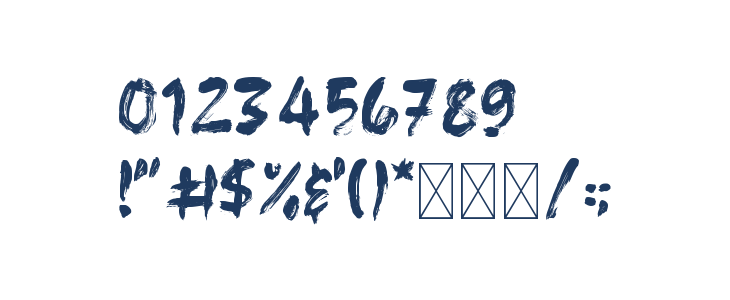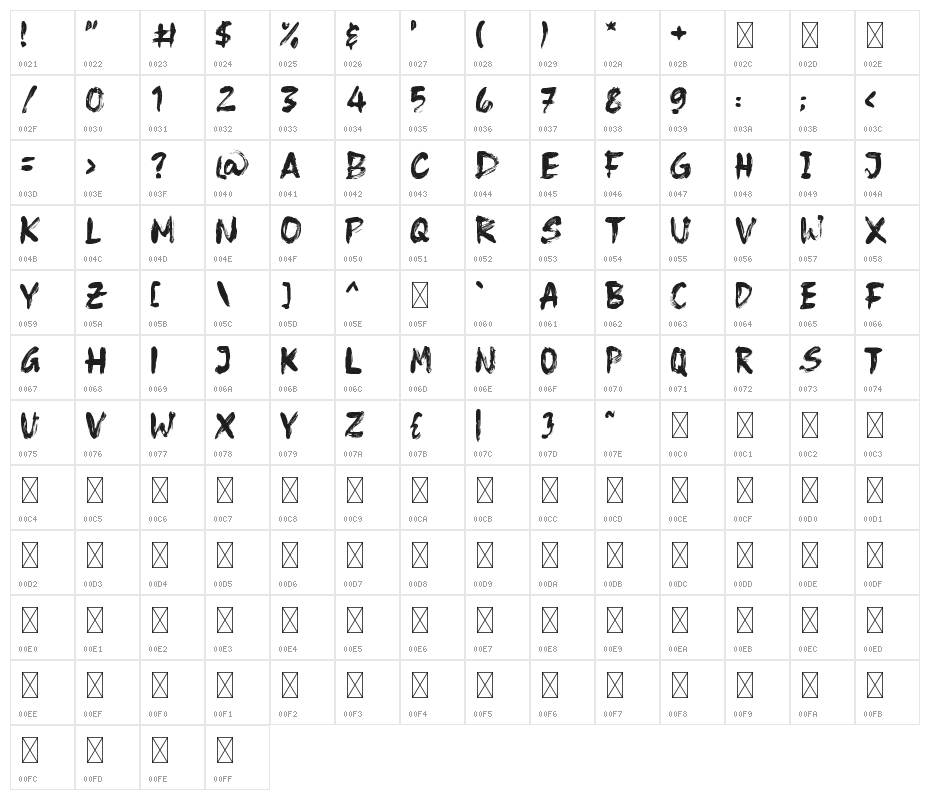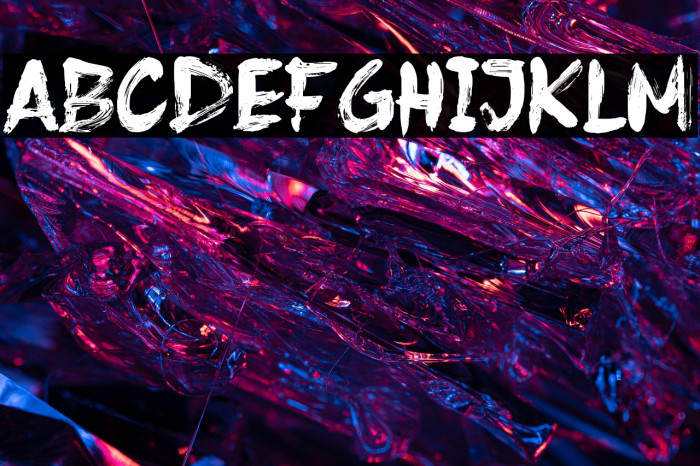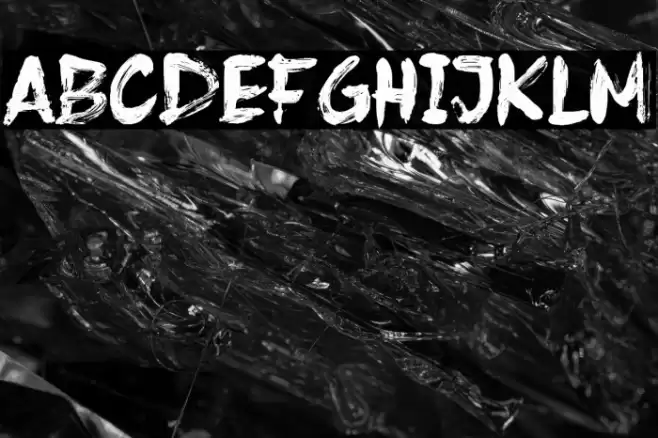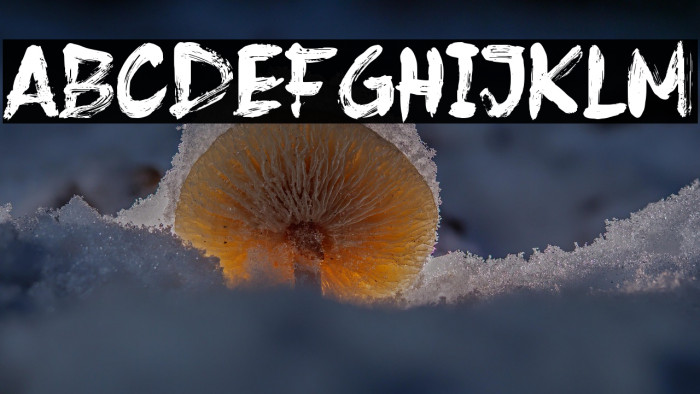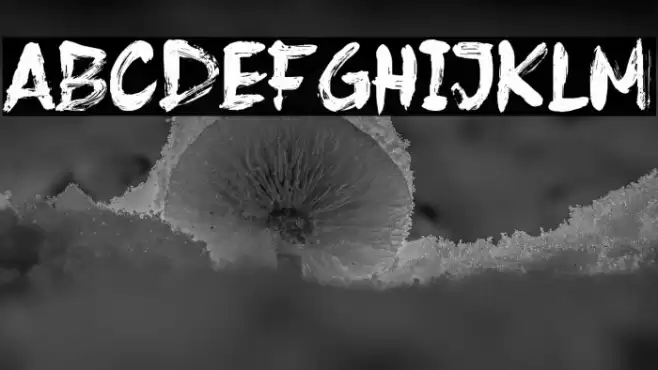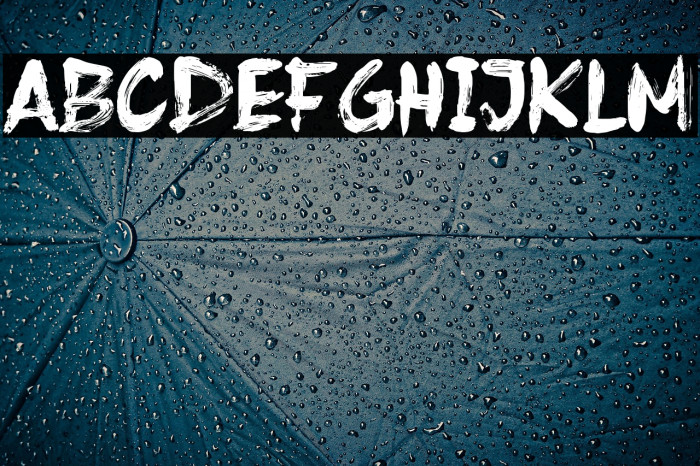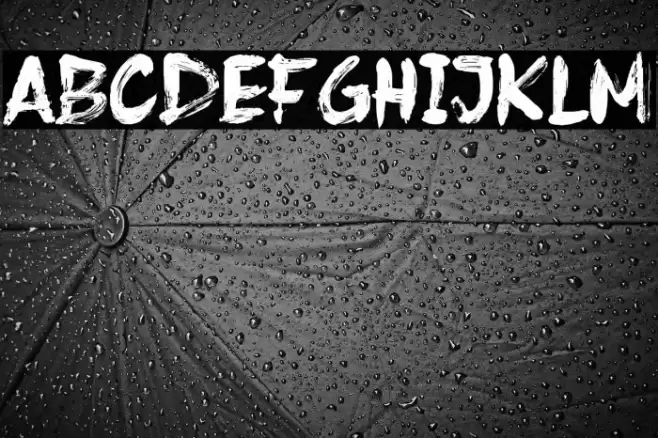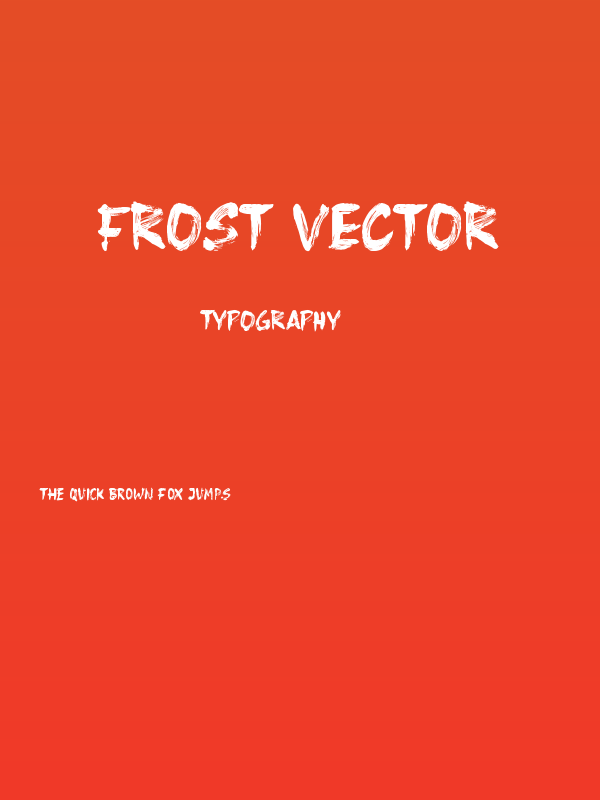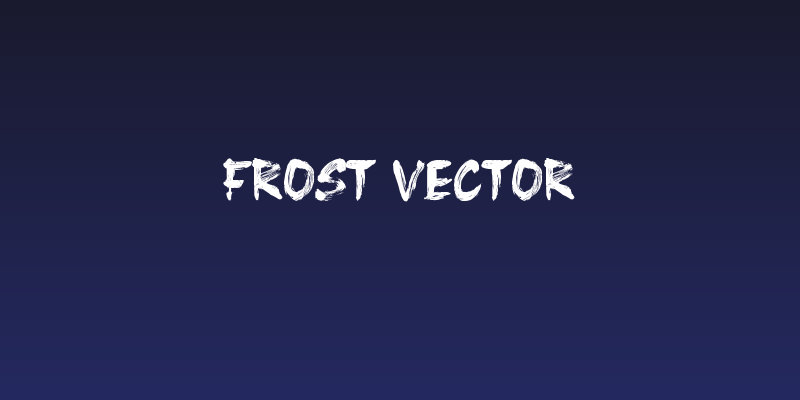
Frost Vector Font
Frost Vector Description
This font features a bold, brushstroke style that exudes energy and dynamism. The characters are crafted with a rough, textured appearance, giving them a hand-painted look. Each letter is unique, with varying thickness and irregular edges, creating a sense of movement and spontaneity. The font is highly expressive, making it ideal for projects that require a strong visual impact. Its artistic flair is perfect for creative designs, adding a touch of raw authenticity and boldness.
| Proposed Projects | Ideal for posters, album covers, branding, and any project needing a bold, artistic touch. |